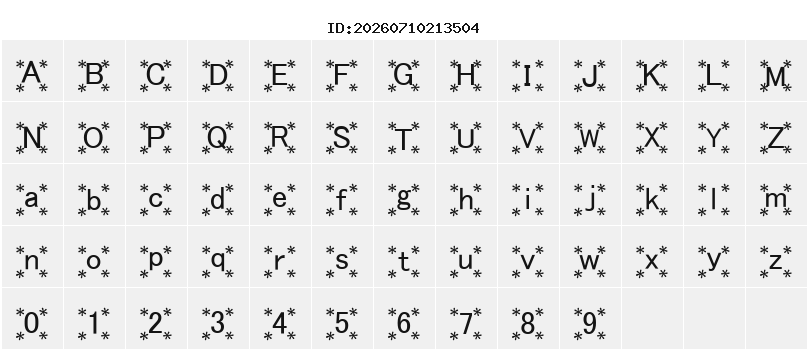
About hana Font.ttf
hana Font.ttf is a modern, elegant sans-serif font designed for ultimate readability and visual harmony. Perfect for branding, headlines, web design, and print materials.